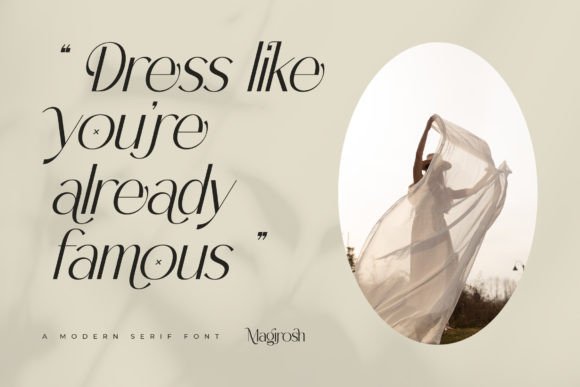
Introduction to Magirosh Font
Magirosh is a modern and stylish serif font that has its own unique appearance.
This typeface is perfect for an elegant and luxurious logo, fashion brands, magazines, apparel, lettering, quotes, and so much more .